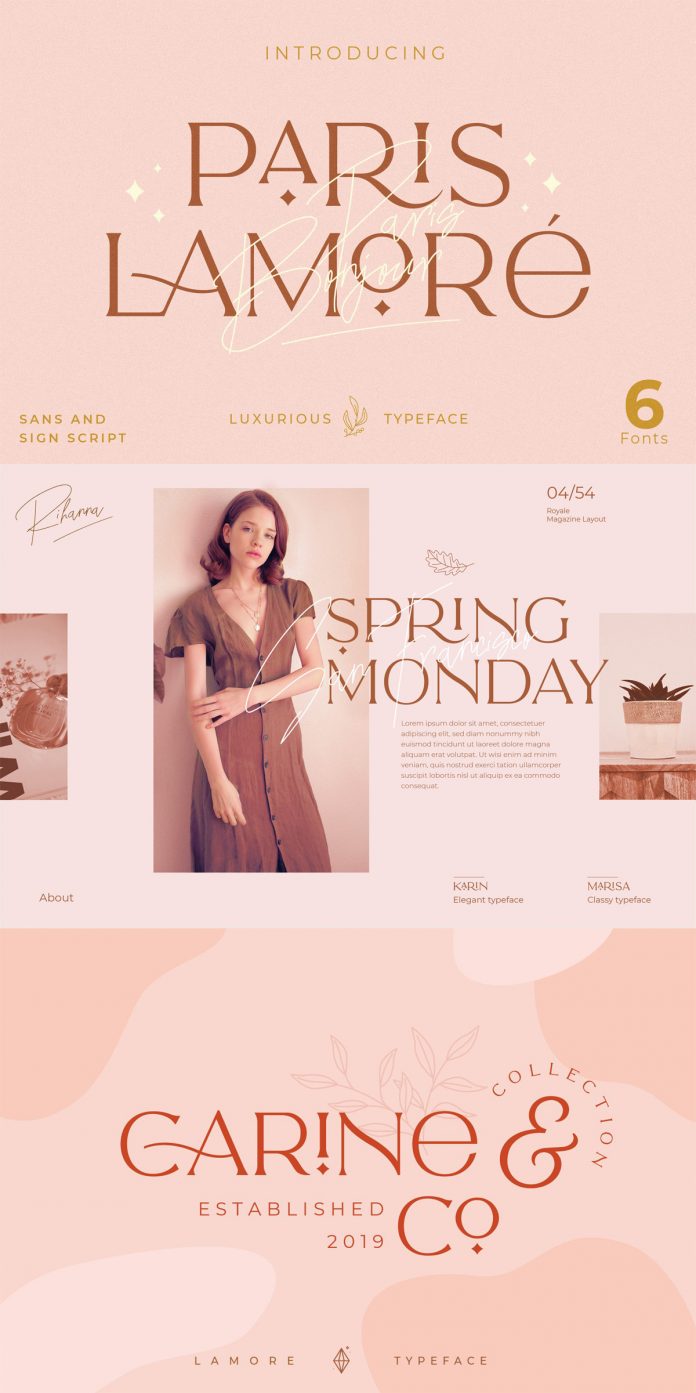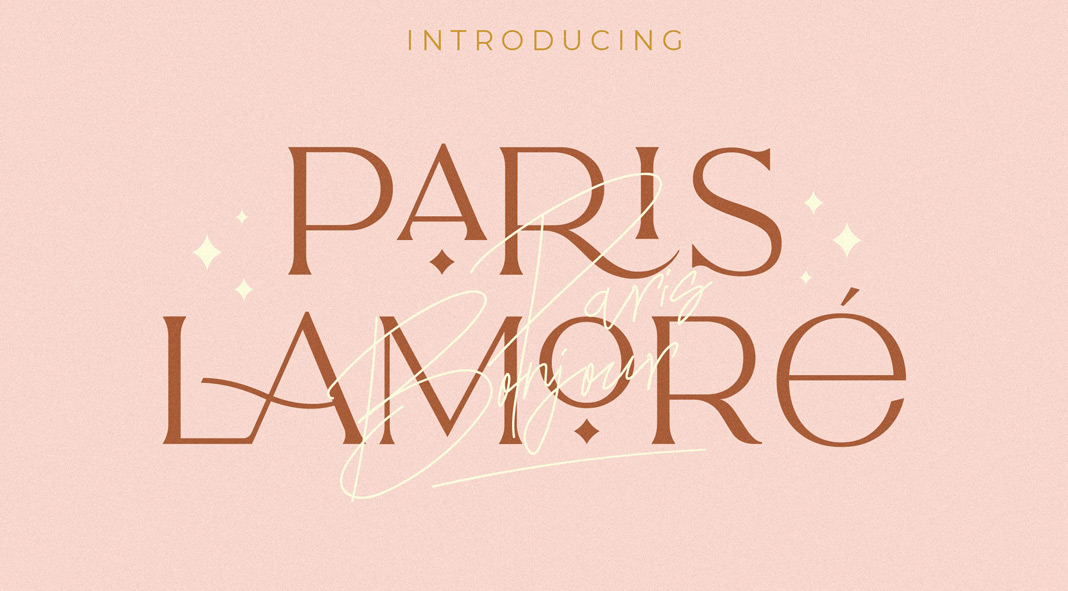
The Lamore Sans & Script font collection, an elegant typeface paired with a signature script font.
The Lamore Sans & Script font collection has been designed by the skilled team of NEWFLIX.Bro. It’s a sophisticated combination of an elegant typeface and a handwritten signature script font. Both typefaces come with plenty of typographic features including beautiful ligatures, alternative glyphs, ornaments, and support for multiple languages. This versatile font collection works great in both large and small sizes. These typefaces are great for branding projects, logo designs, apparel, packaging, magazine headlines, etc. Just click on one of the following links to learn more about all features.